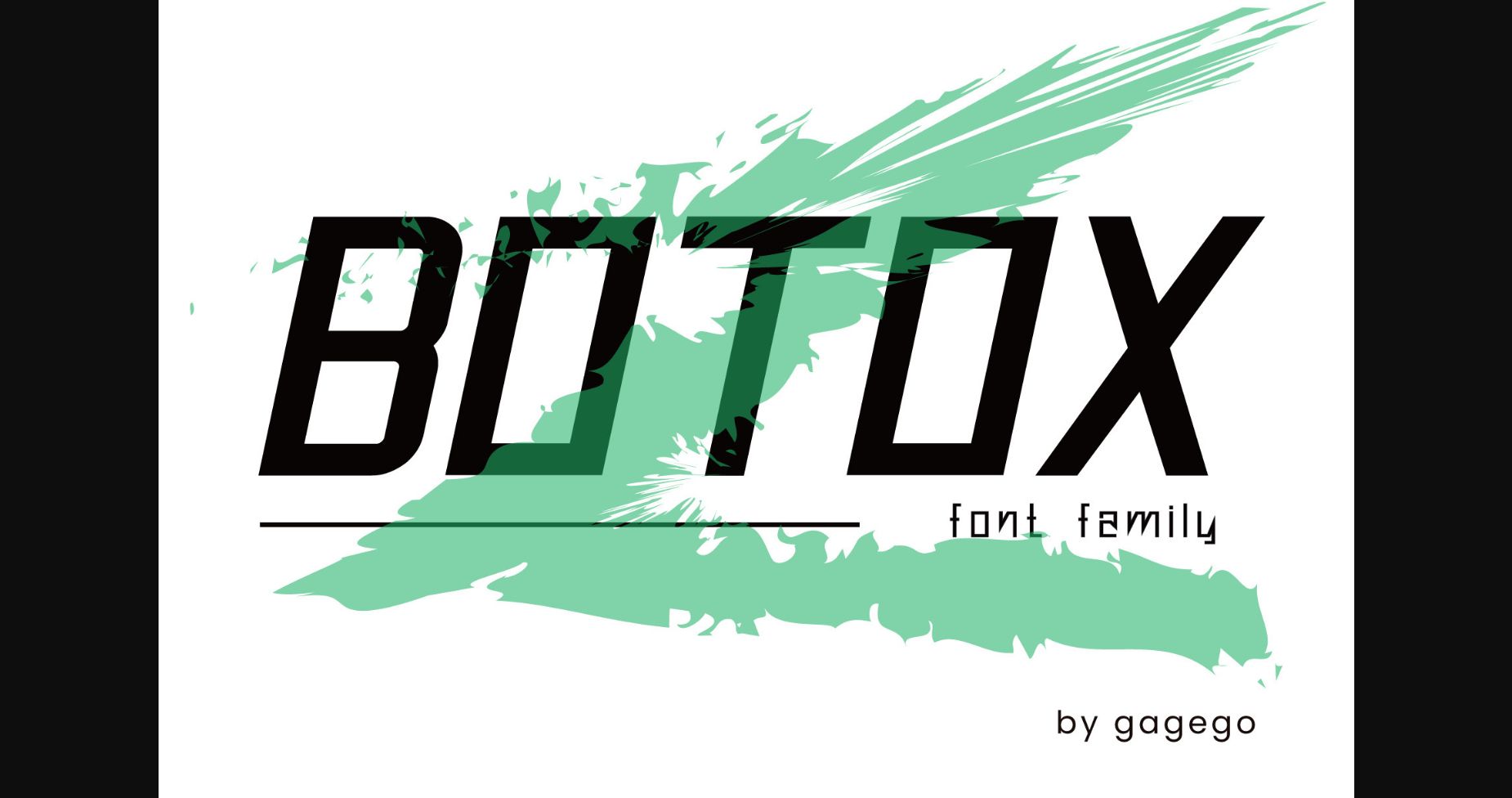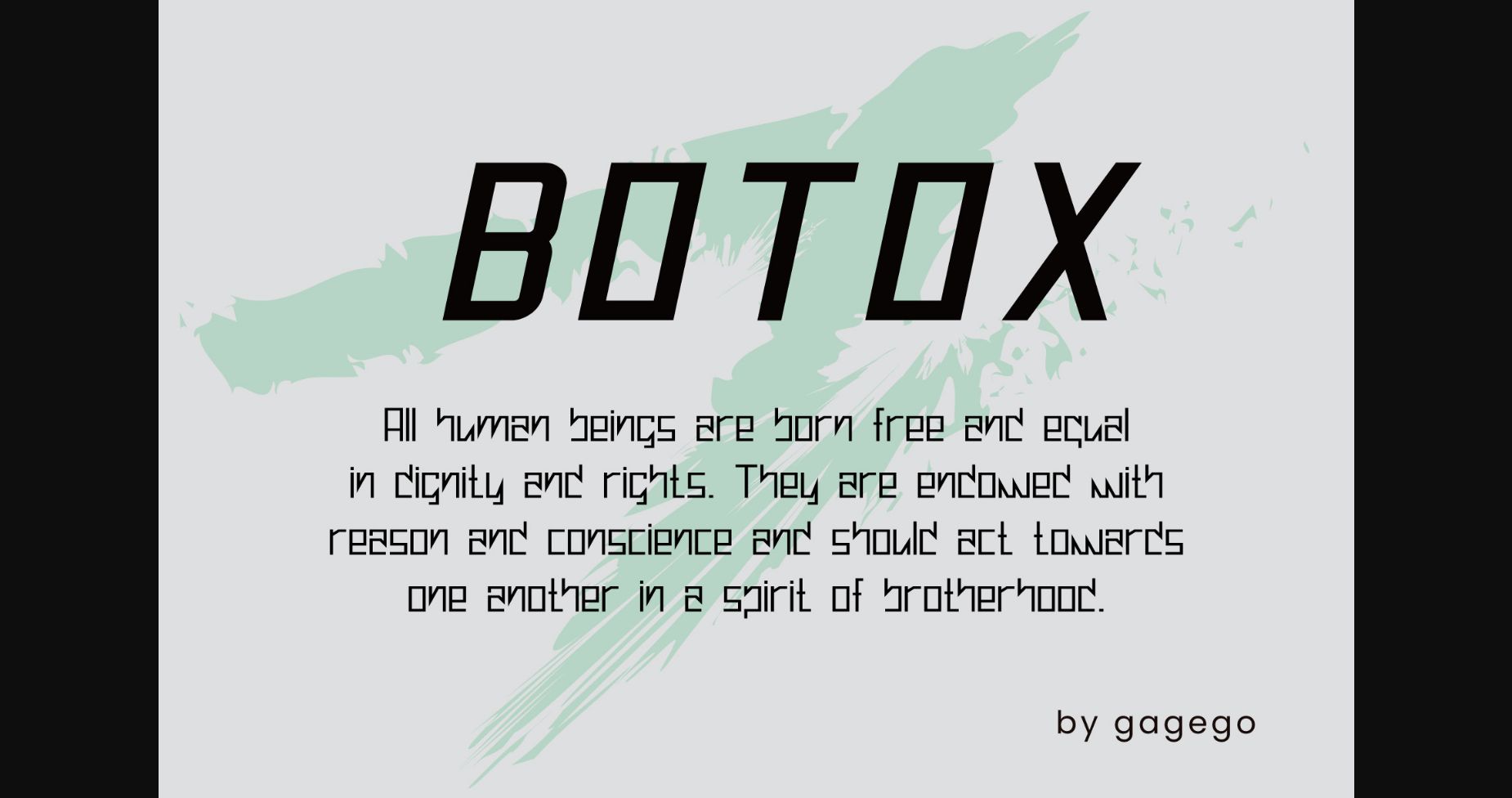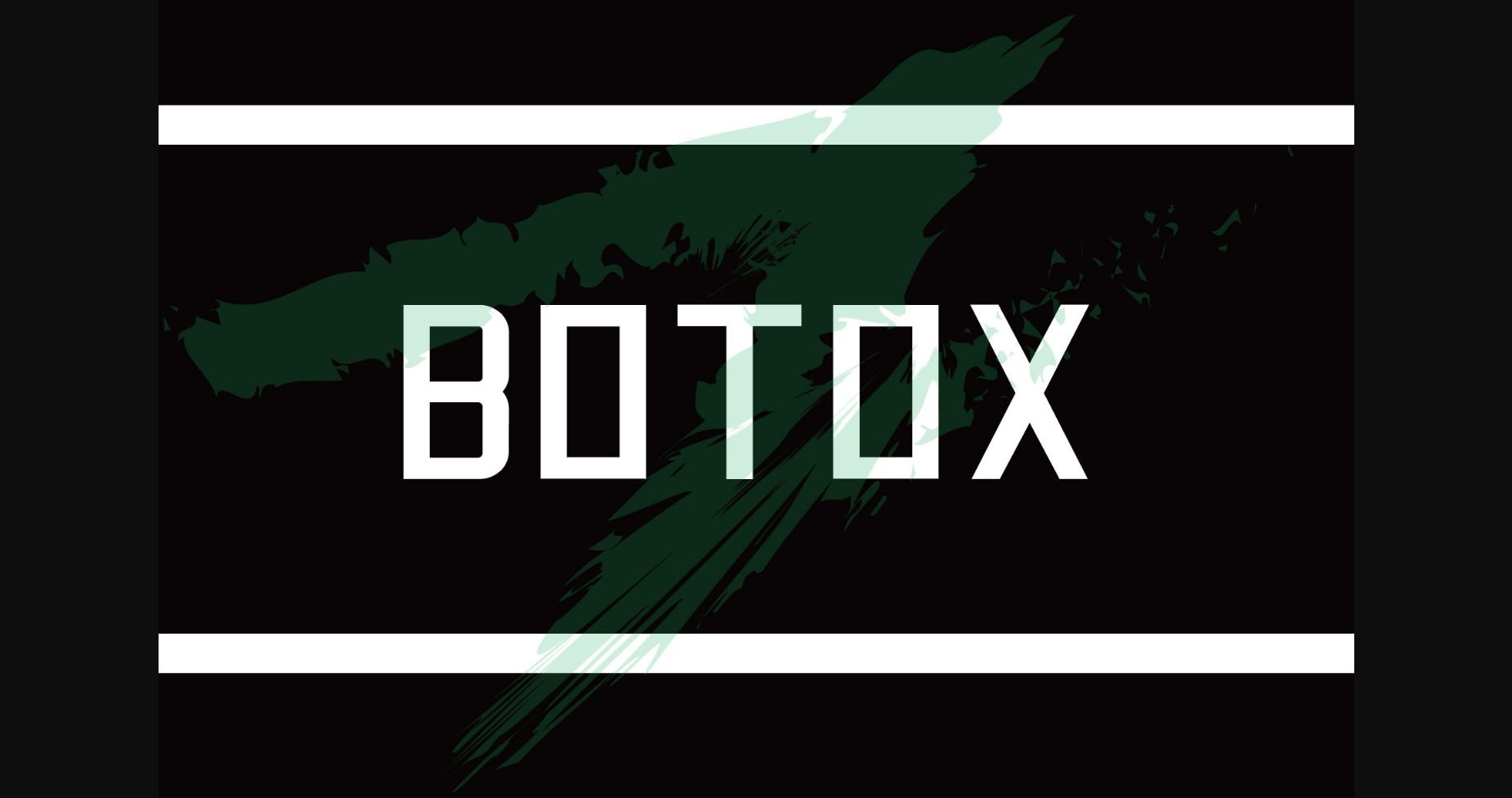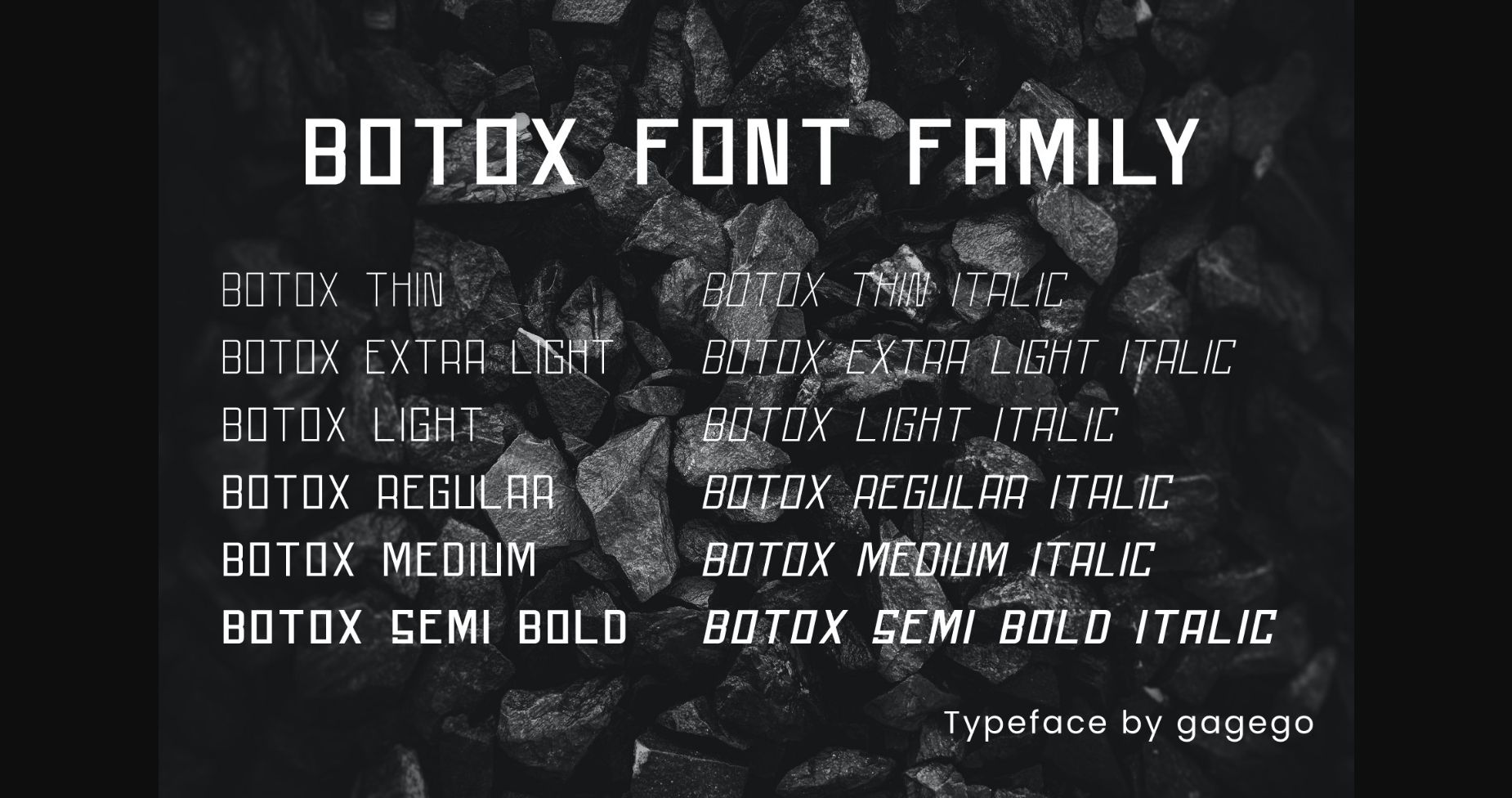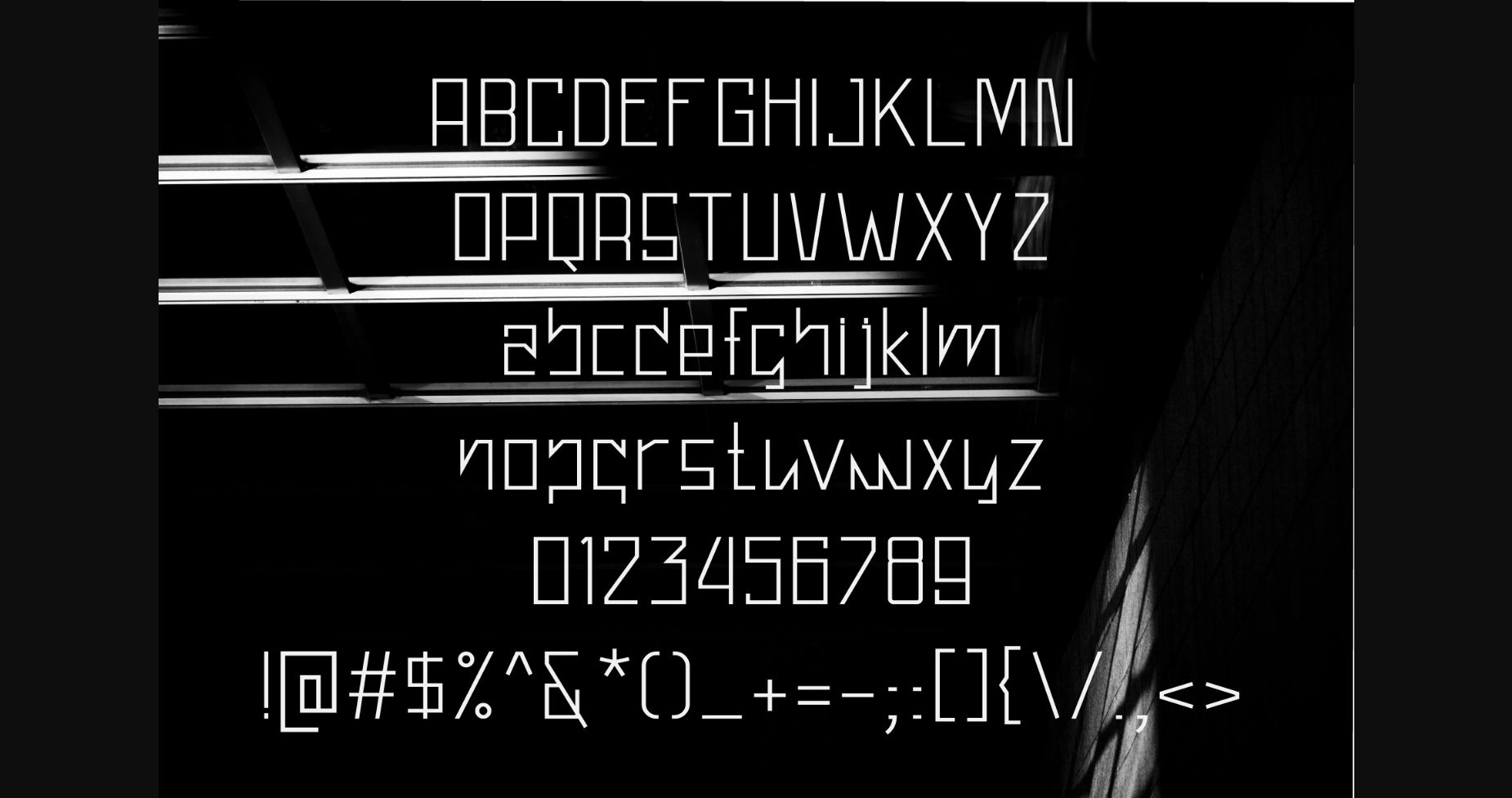
Botox Font
About Botox Font
Botox is a sleek and sophisticated sans-serif font that exudes modern elegance. With its clean lines and geometric shapes, Aurelia is perfect for branding, editorial design, and digital applications. Its bold yet graceful presence will leave a lasting impression on any project.